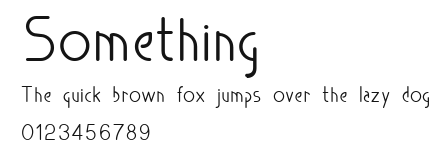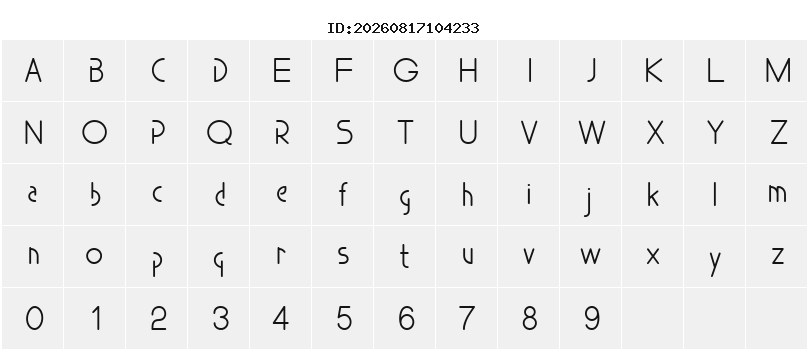
• Font Name: Something
• Font ID: diMarques: Something: 2009
• Full Font Name: Something
• PostScript Name: Something
• Designer: di Marques
• Manufacturer: di Marques
About Something.ttf
Something.ttf is a modern, elegant sans-serif font designed for ultimate readability and visual harmony. Perfect for branding, headlines, web design, and print materials.